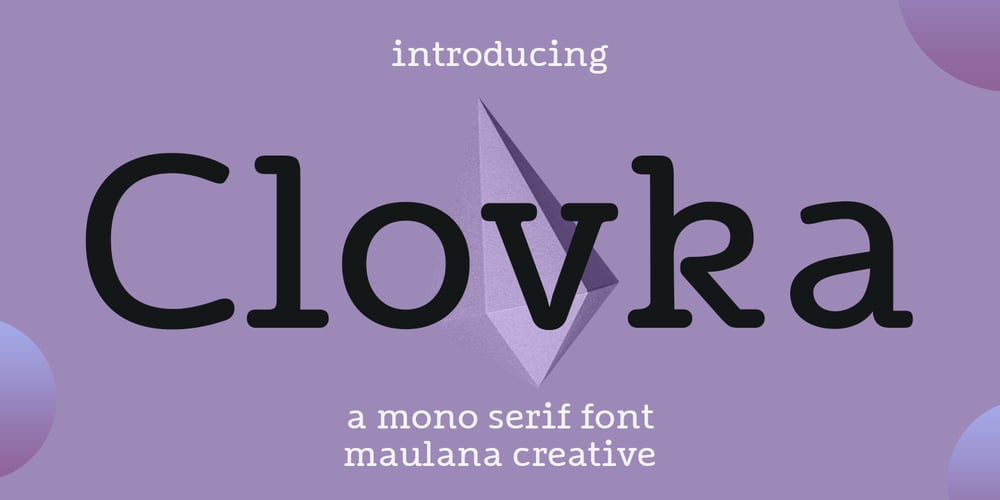
MC Clovka Font Family was designed by Gilang Maulana and published by Maulana Creative. MC Clovka contains 1 styles and family package options. Clovka is a mono-serif display font. With Regular stroke, fun character with a bit of ligatures and alternates. To give you an extra creative work. Clovka font support multilingual more than 100+ language. This font is good for logo design, Social media, Movie Titles, Books Titles, a short text even a long text letter and good for your secondary text font with script or serif. Make a stunning work with Clovka font. Cheers, Maulana Creative